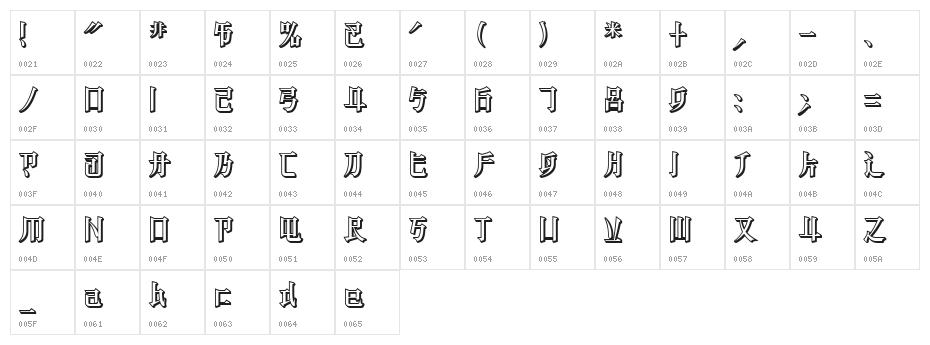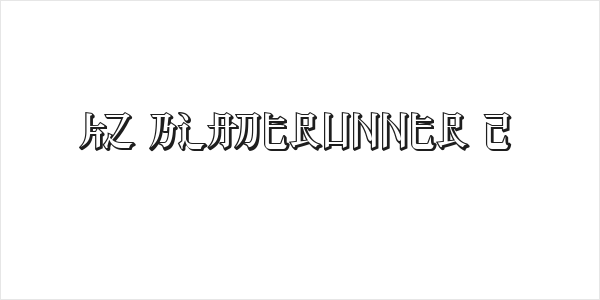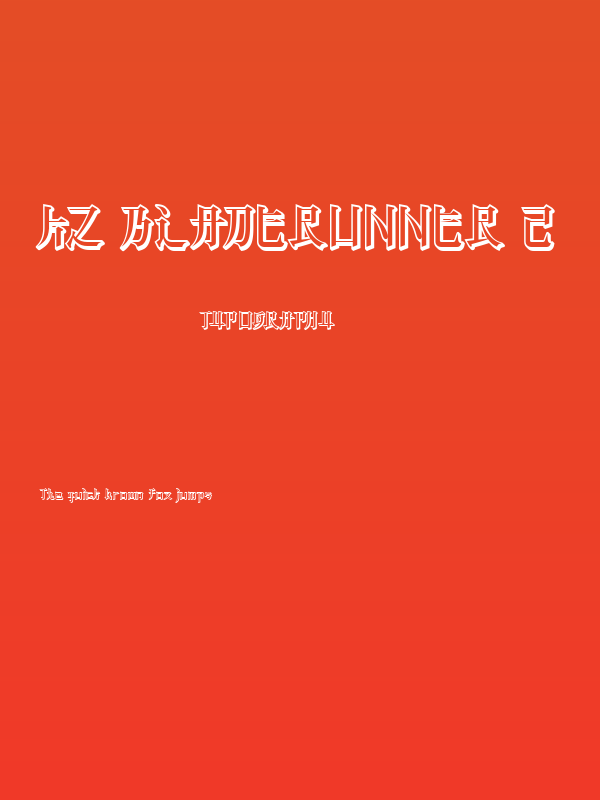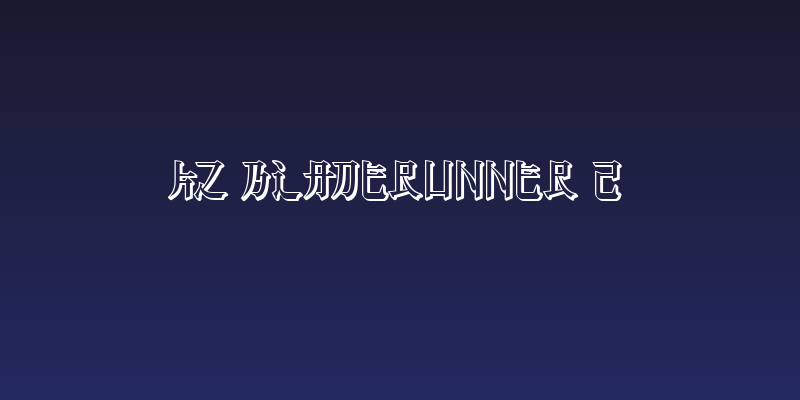
KZ BLADERUNNER 2 Font
KZ BLADERUNNER 2 Description
This font features a futuristic and angular design, reminiscent of sci-fi aesthetics. The characters are bold and have a distinct geometric structure, with sharp edges and a three-dimensional effect created by the shadowing. The uppercase and lowercase letters maintain a consistent style, emphasizing a sense of uniformity and modernity. The numerals and special characters follow the same design principles, ensuring a cohesive look across all elements. This font's unique style makes it stand out, ideal for projects that require a bold and innovative appearance.
| Proposed Projects | Ideal for sci-fi themed projects, movie posters, video game titles, and futuristic branding. |